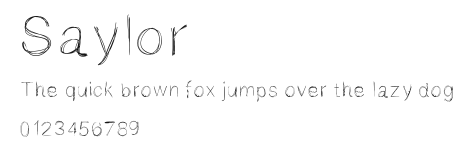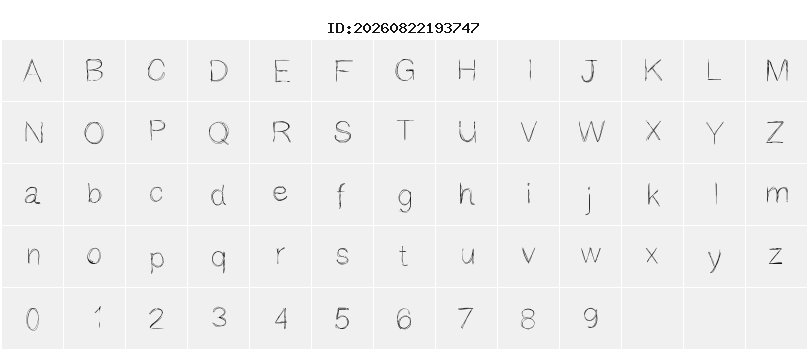
About Saylor.ttf
Saylor.ttf is a modern, elegant sans-serif font designed for ultimate readability and visual harmony. Perfect for branding, headlines, web design, and print materials.